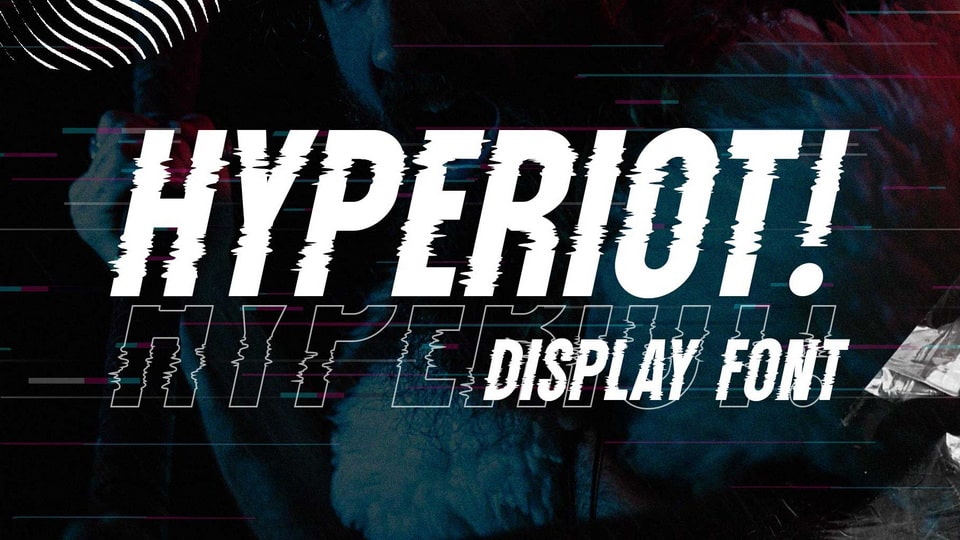
Download Hyperiot font, an experimental condensed typeface that draws inspiration from brutalism and glitch styles. This unique typeface is designed with a randomized glitch effect.